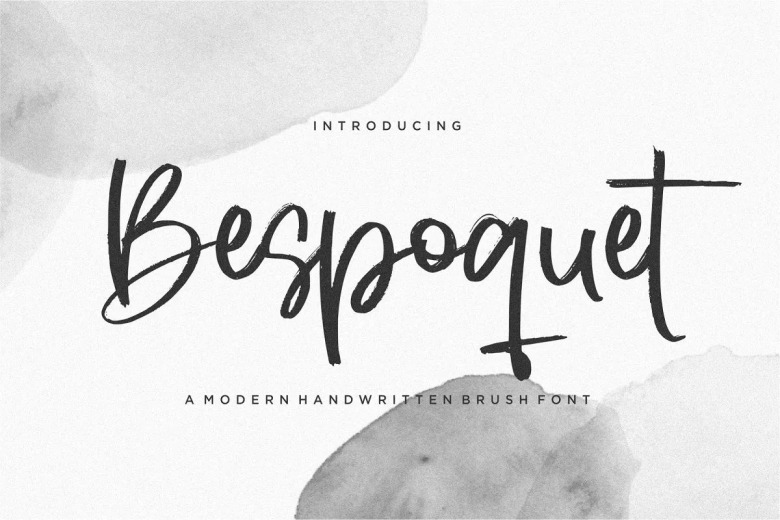
Bespoquet Font
Bespoquet is a Modern Handwritten Brush Script Font. Bespoquet is perfect for product packaging, branding project, magazine, social media, wedding, or just used to express words above the background.
Bespoquet Brush Script Font